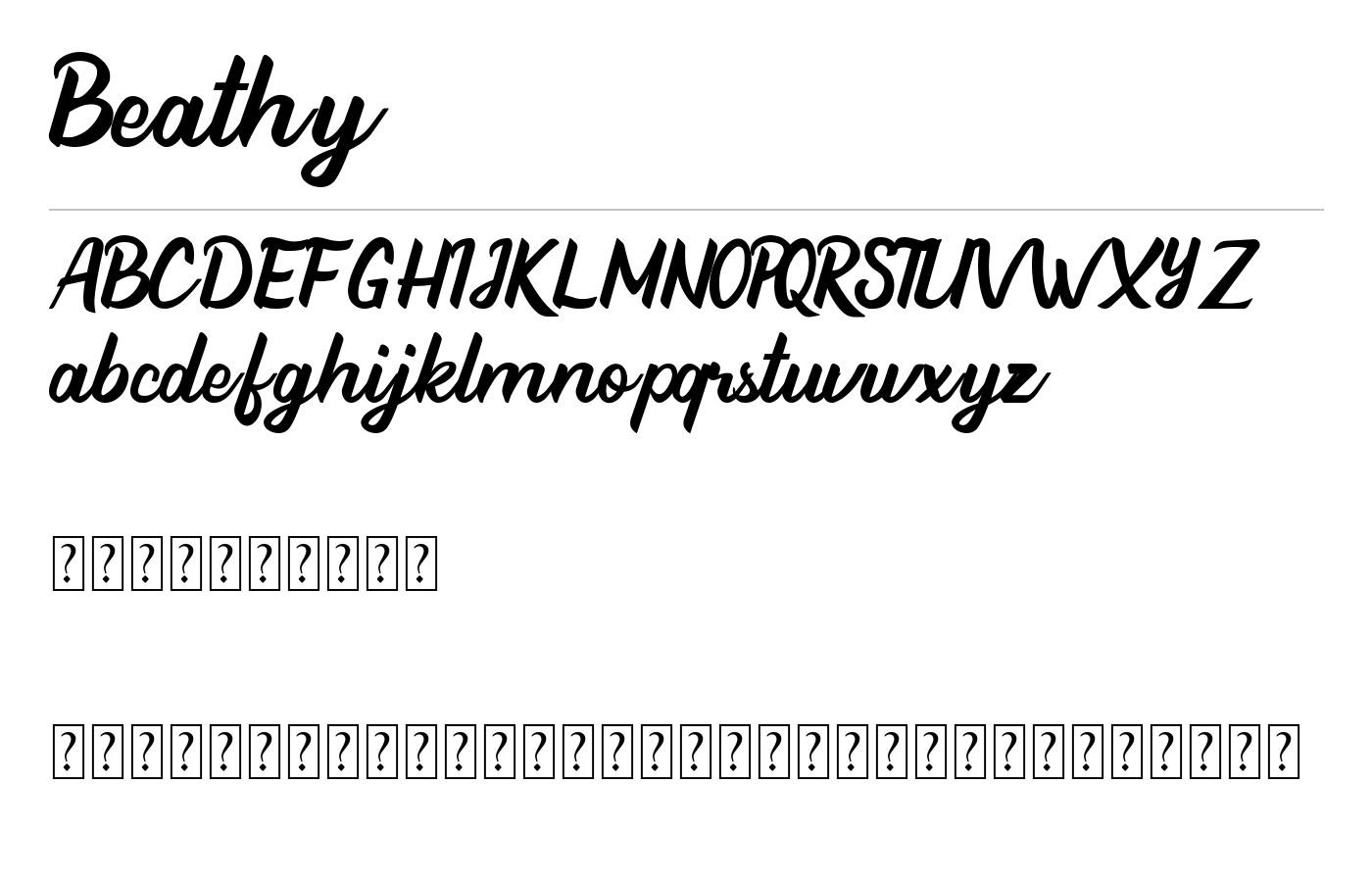
Beathy Font is a lively script typeface that blends casual elegance with a handwritten feel, featuring smooth, flowing strokes and moderate contrast. Its slightly condensed letterforms and playful curves make it ideal for branding, invitations, and creative projects that want to convey warmth and personality. This font works well in display settings where a friendly yet stylish impression is needed.
Beathy Font
About Beathy Font
| Font family | Beathy Font |
| Designer | SaberStudio 2019 |